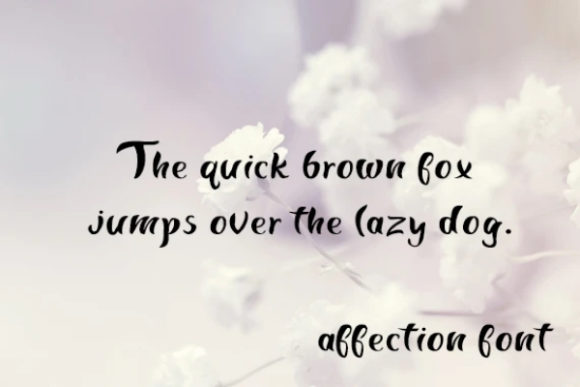
Affection Font: Elevate Your Designs with Elegance and Whimsy
Are you a designer, crafter, or DIY enthusiast looking for a font that can add a touch of magic to your creative projects? Look no further than Affection Font, a beautiful handwritten script that combines elegance and playfulness. In this article, we’ll dive into the world of Affection Font, exploring its features, uses, and benefits, as well as provide tips and inspiration for incorporating it into your designs.
What is Affection Font?
Affection Font is a carefully crafted handwritten font that exudes a sense of warmth and sophistication. With its flowing lines, delicate curves, and whimsical flourishes, this font is perfect for adding a personal touch to your designs. Whether you’re creating social media graphics, invitations, or DIY projects, Affection Font is sure to make your work stand out.
Key Features of Affection Font
- Handwritten with love: Affection Font is a genuine handwritten script, created with care and attention to detail to ensure a unique and personal feel.
- Elegant and whimsical: This font combines elegance and playfulness, making it perfect for a wide range of design projects, from formal invitations to social media graphics.
- Highly versatile: Affection Font can be used for a variety of design projects, including Instagram graphics, calligraphy scripts, DIY projects, and more.
Uses for Affection Font
Affection Font is an incredibly versatile font that can be used in a variety of design projects, including:
- Instagram graphics: Add a touch of elegance and whimsy to your Instagram posts and stories with Affection Font.
- Calligraphy scripts: Use Affection Font to create beautiful calligraphy scripts for DIY projects, such as wedding invitations, greeting cards, and more.
- DIY projects: Affection Font is perfect for a variety of DIY projects, including scrapbooking, journaling, and craft projects.
- Branding and marketing: Use Affection Font to add a personal touch to your brand’s marketing materials, such as business cards, brochures, and website headers.
Benefits of Using Affection Font
So why choose Affection Font for your design projects? Here are just a few benefits:
- Adds a personal touch: Affection Font’s handwritten script adds a unique and personal touch to your designs, setting them apart from more formal fonts.
- Evokes emotion: The elegant and whimsical feel of Affection Font can evoke emotions and create a connection with your audience.
- Versatile and adaptable: Affection Font can be used in a variety of design projects, making it a valuable addition to your font library.
Tips for Using Affection Font
Here are a few tips for getting the most out of Affection Font:
- Experiment with sizes and colors: Affection Font looks great in a variety of sizes and colors, so don’t be afraid to experiment and find the perfect combination for your design.
- Pair with other fonts: Affection Font pairs well with a variety of other fonts, so try combining it with other scripts or sans serifs to create a unique look.
- Use for headlines and titles: Affection Font’s elegant and whimsical feel makes it perfect for headlines and titles, adding a touch of sophistication to your designs.
Affection Font is a beautiful and versatile handwritten script that can add a touch of magic to your design projects. With its elegant and whimsical feel, this font is perfect for designers, crafters, and DIY enthusiasts looking to create unique and eye-catching designs. Whether you’re working on Instagram graphics, calligraphy scripts, or DIY projects, Affection Font is sure to become a favorite in your font library.